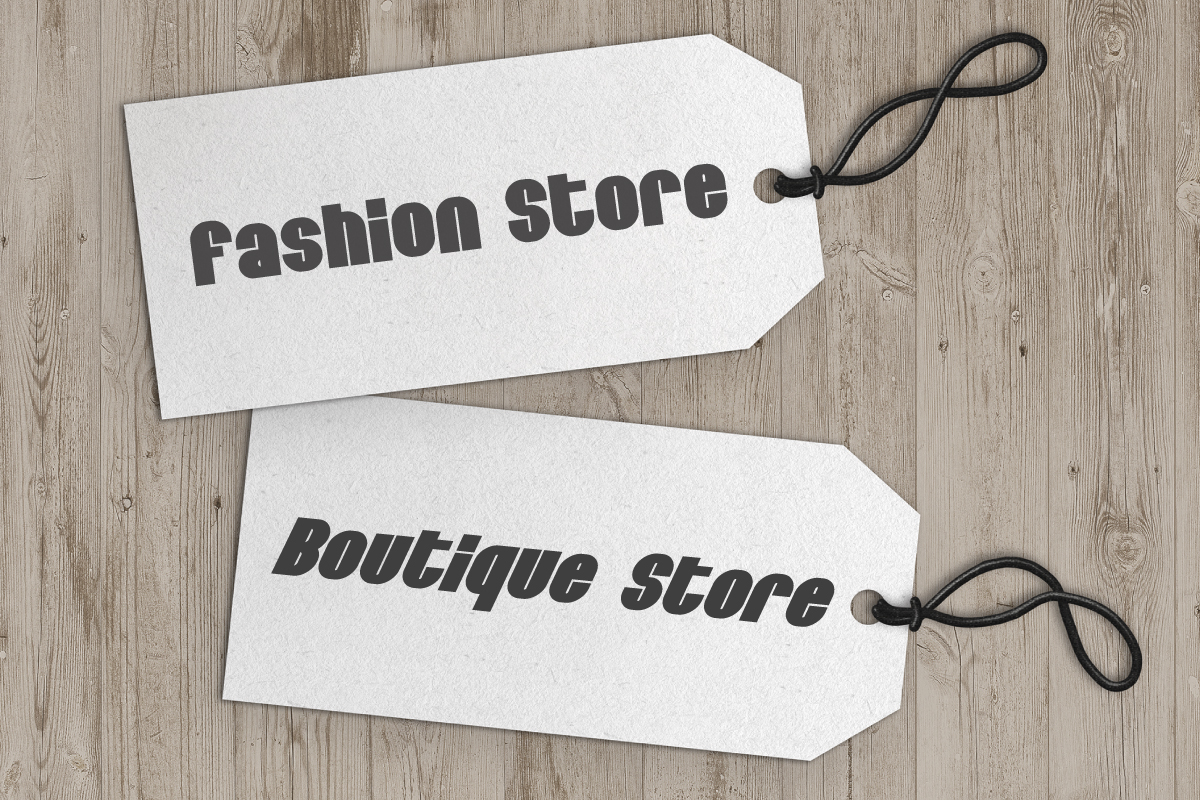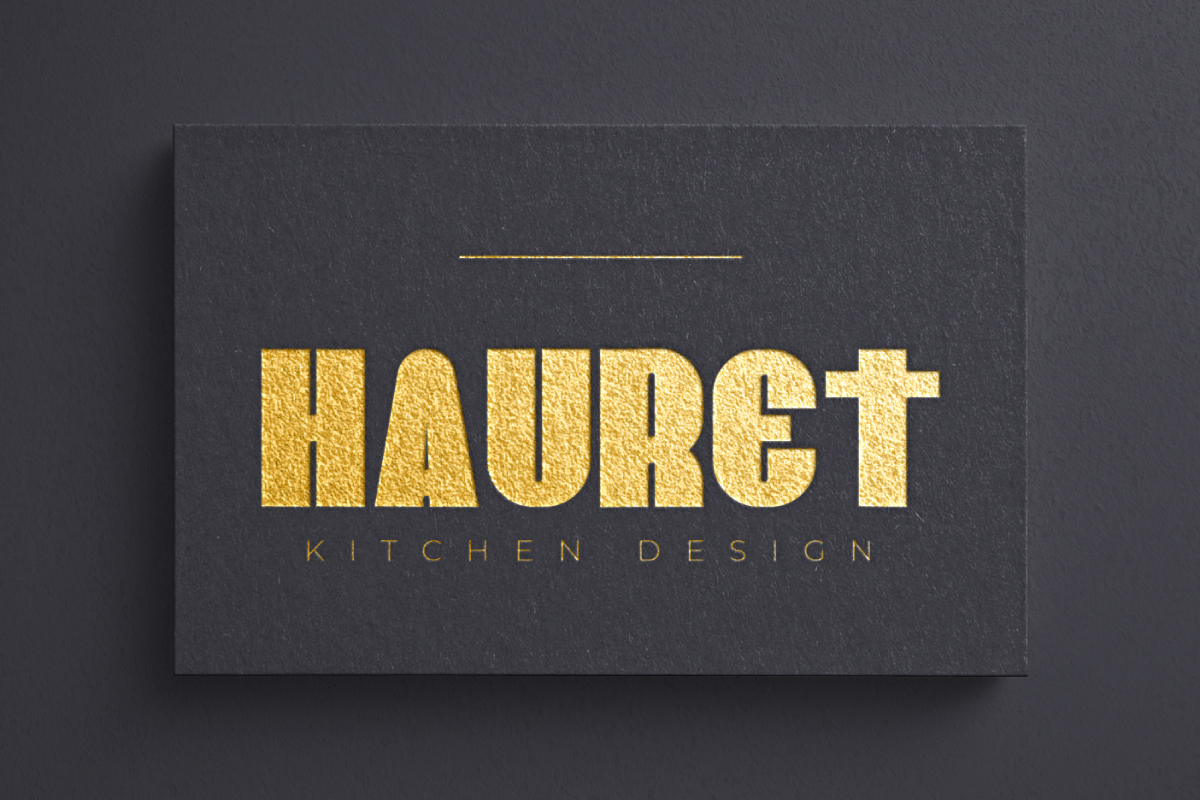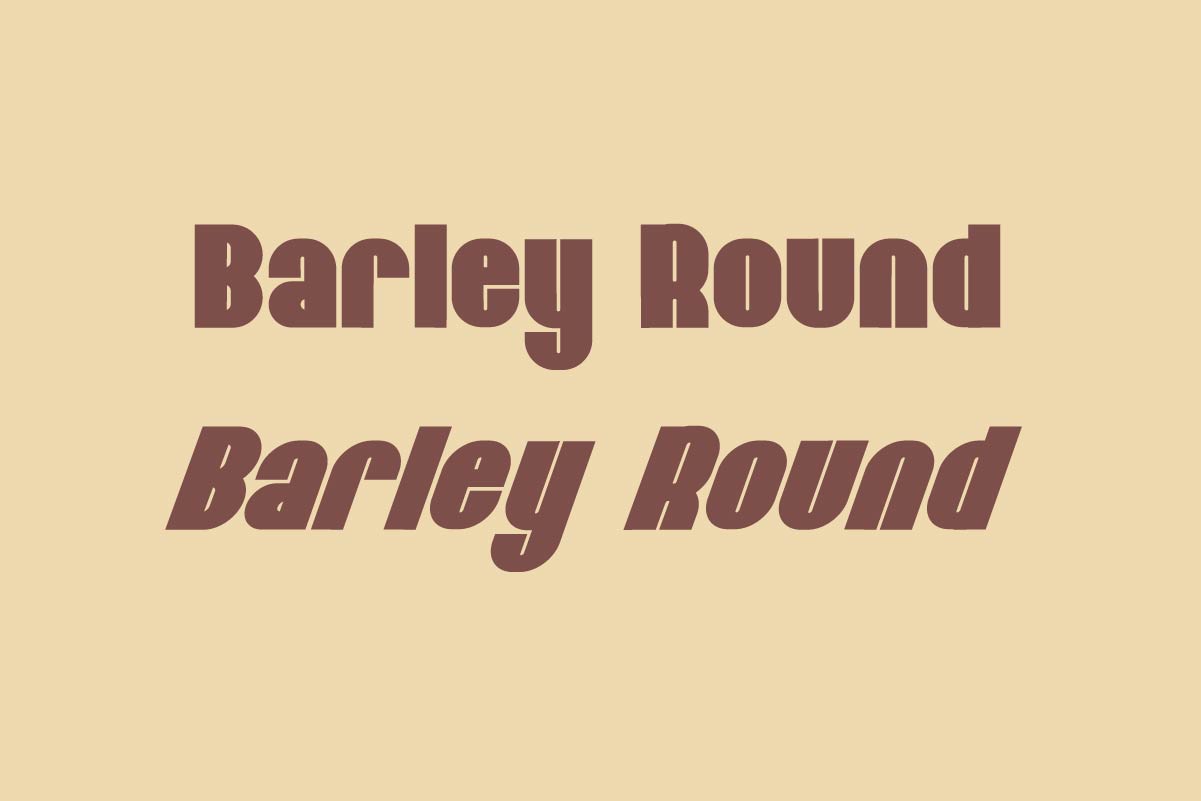
Barley Round Display Font
This is a sans serif font family with modern and rounded face style. The font has some characteristic which are modern, techno, strong, bold, sporty etc. It will be cool for logo, brandings, headlines, signage etc. Barley Round Font come with two styles : Regular and Italic.